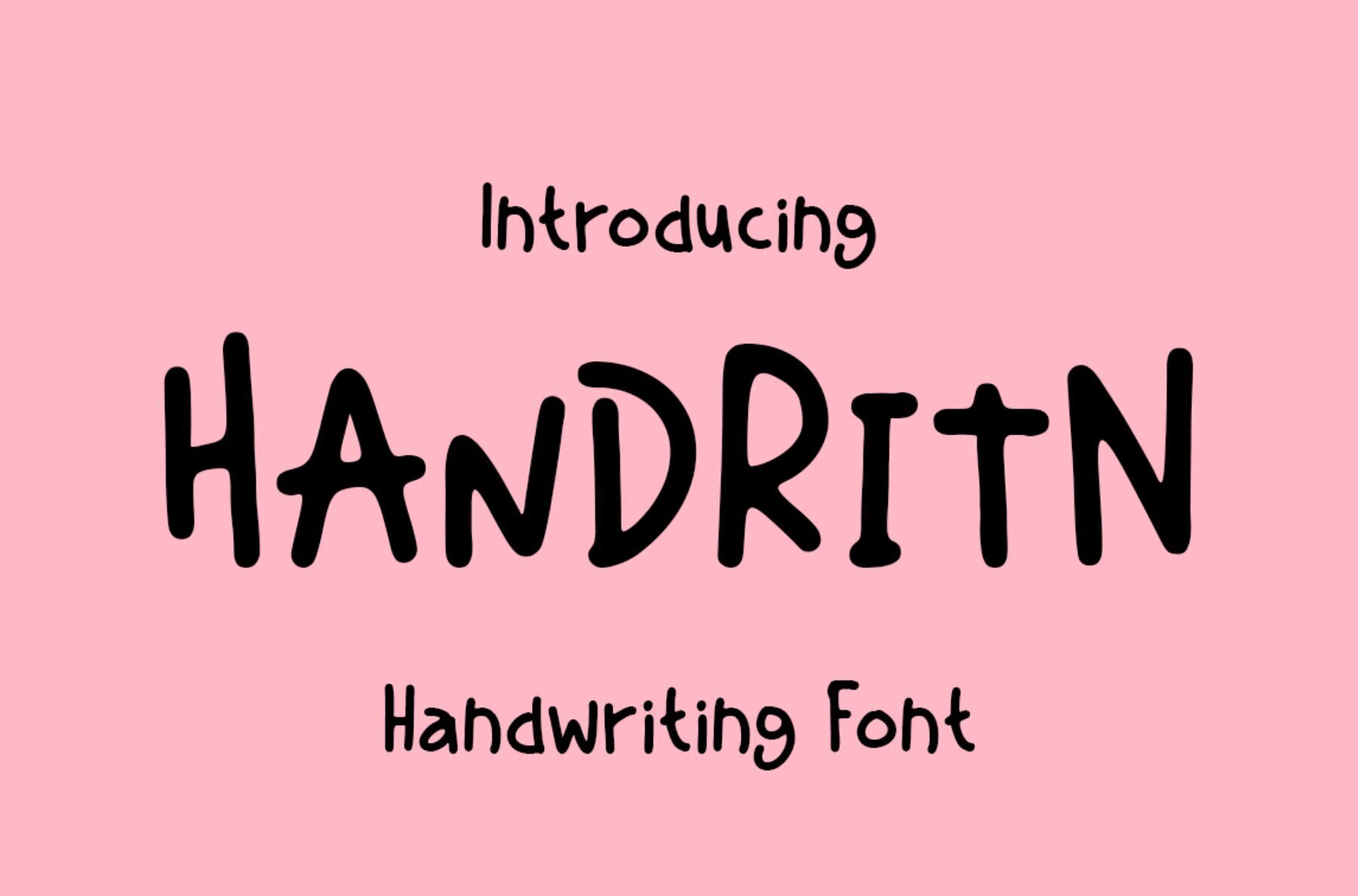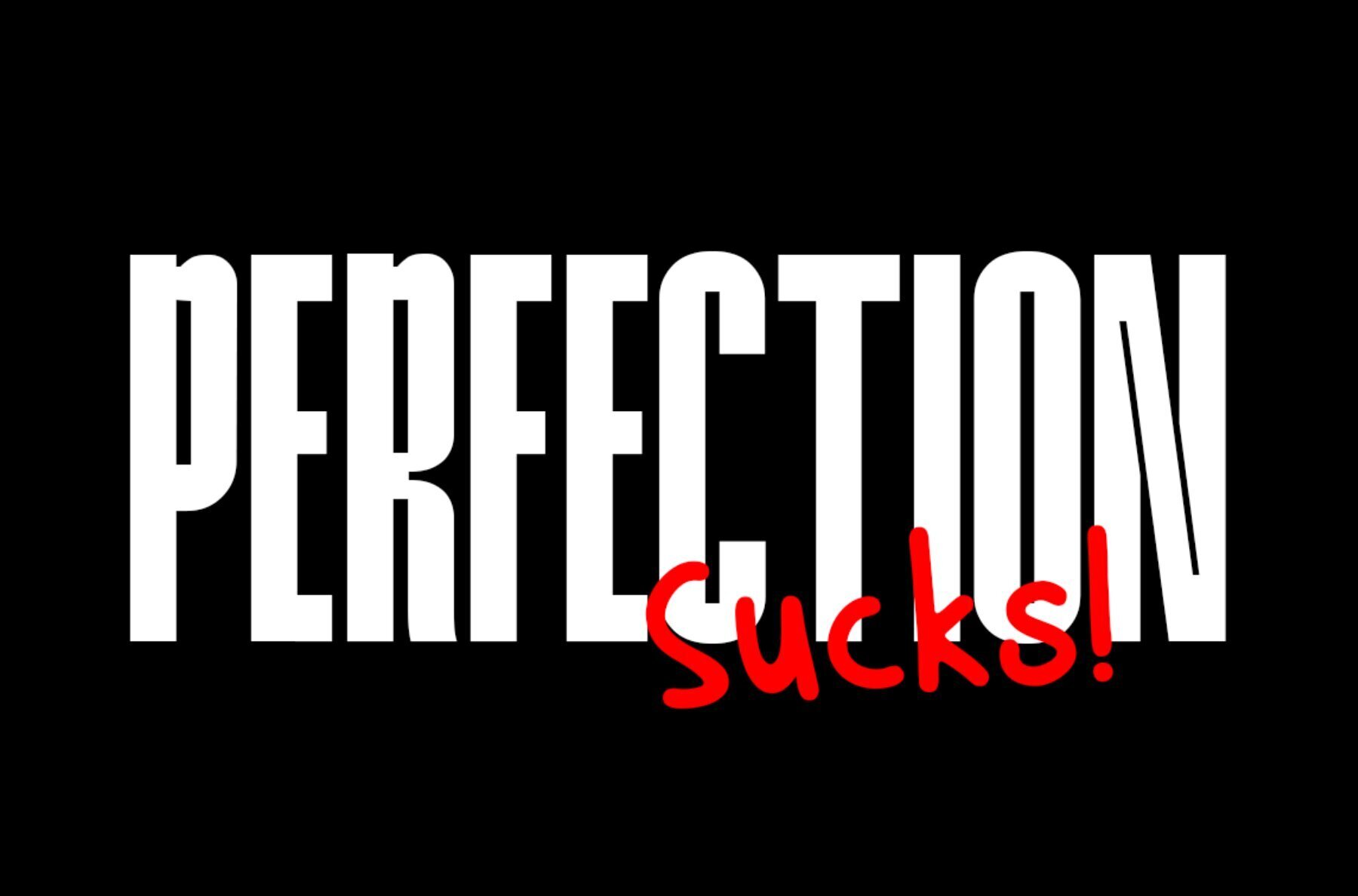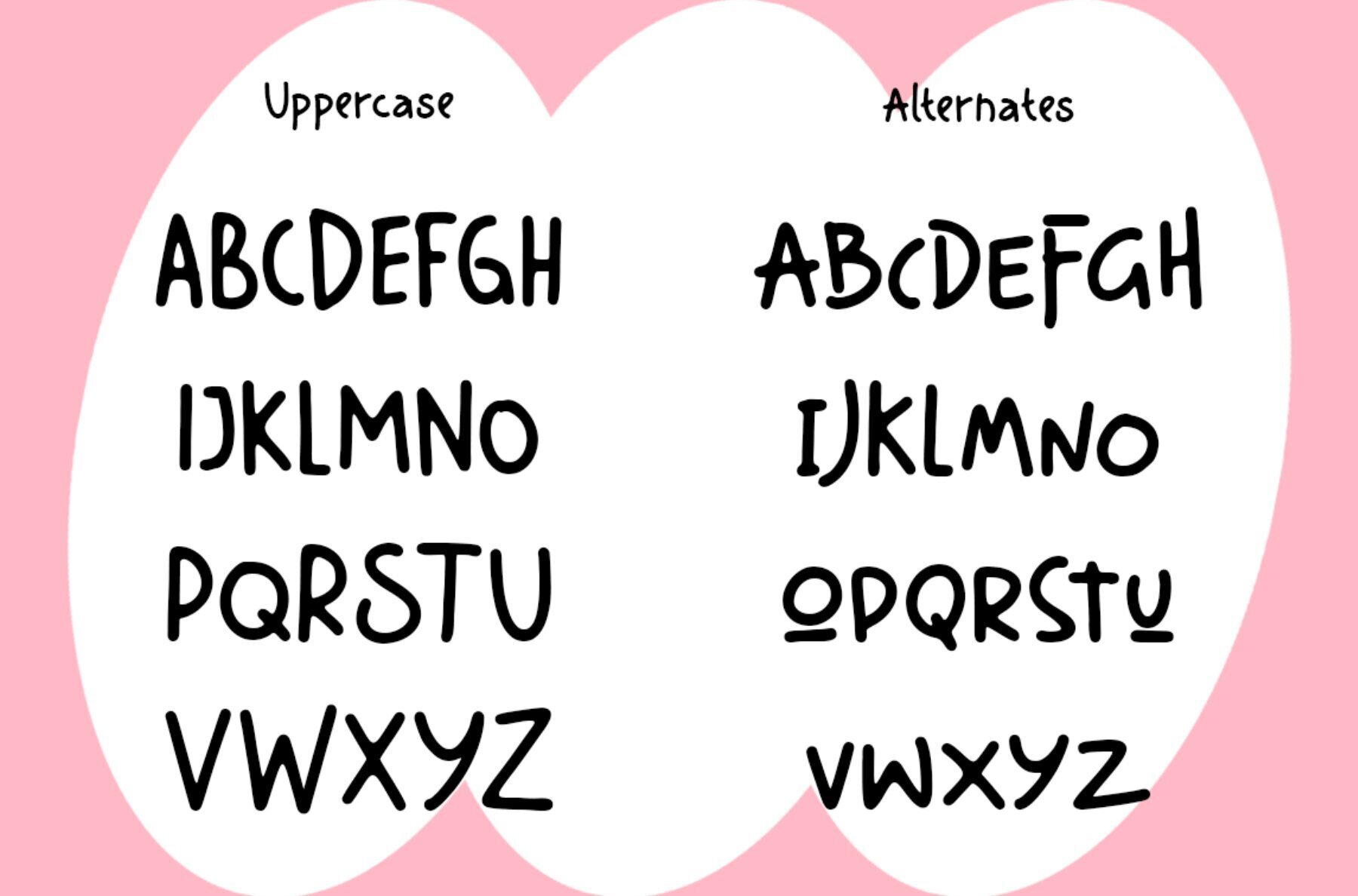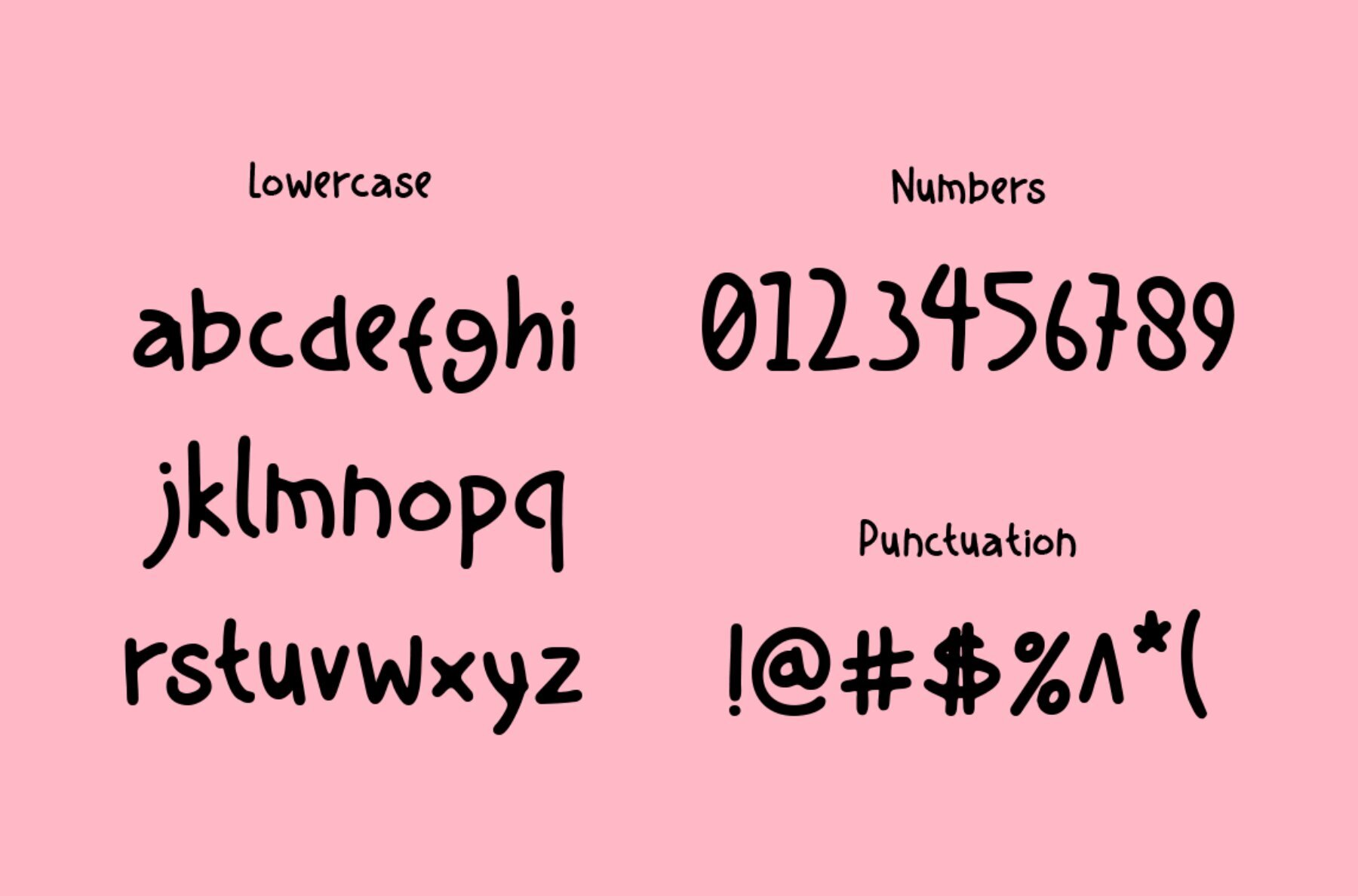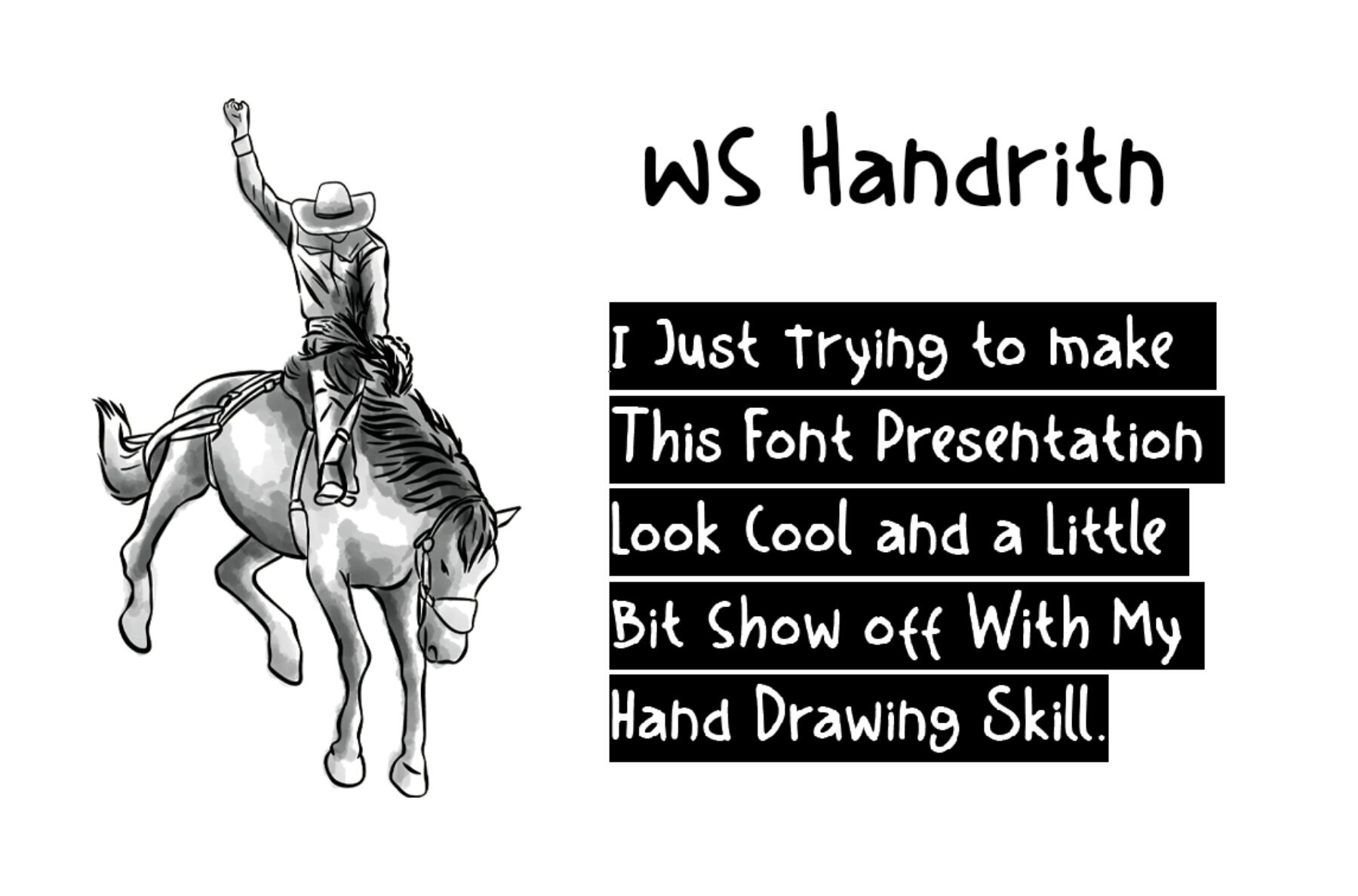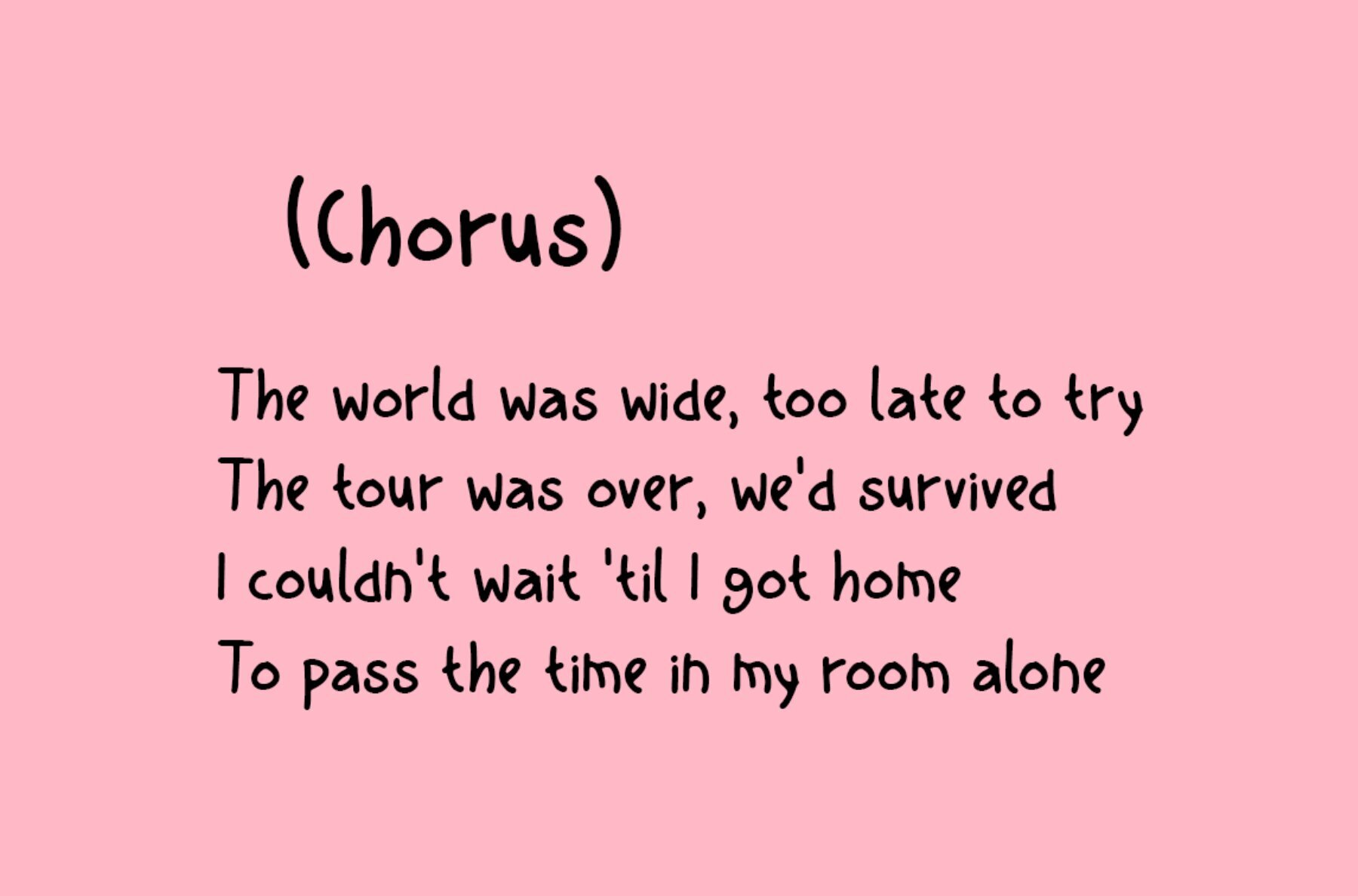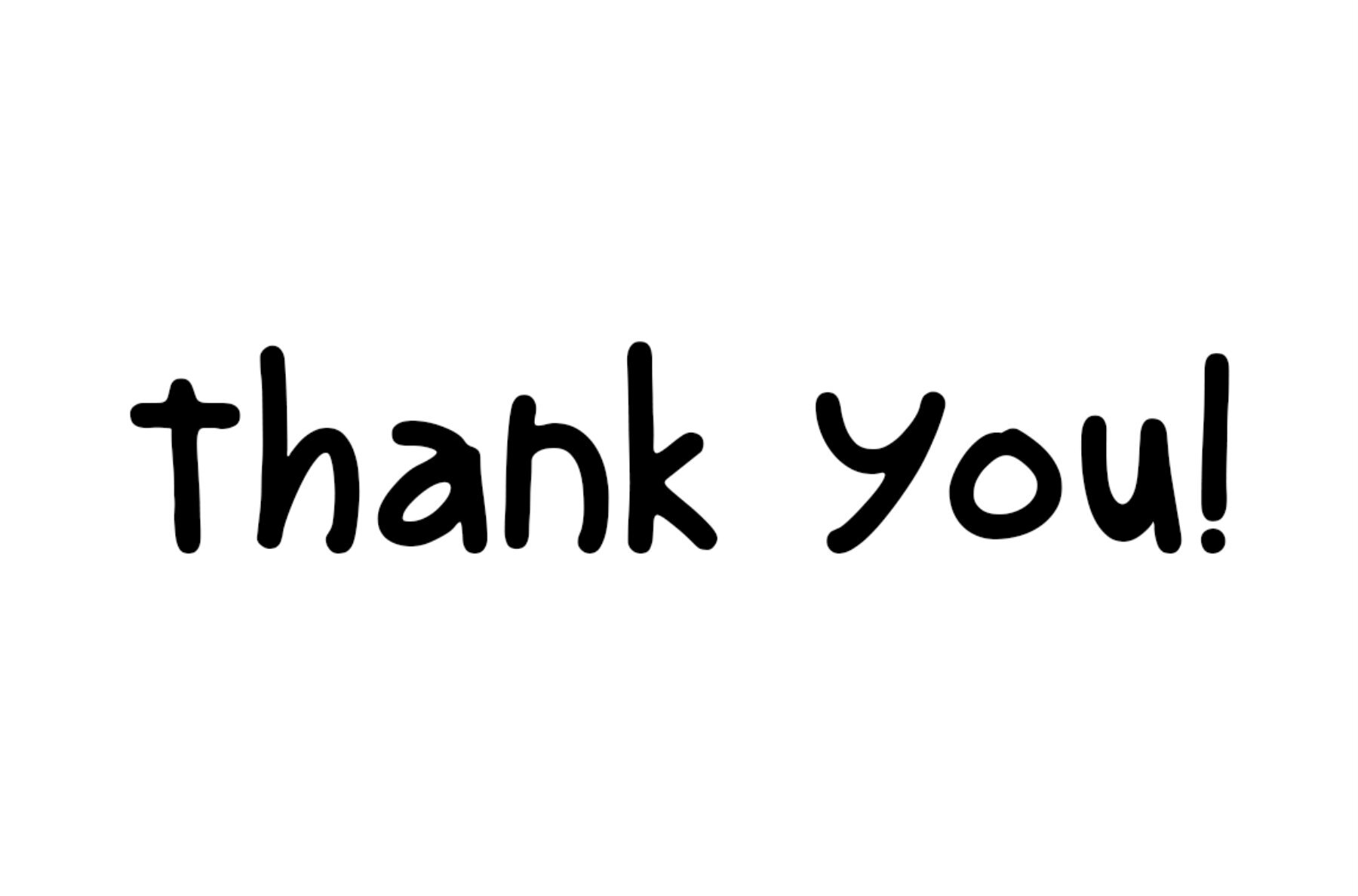
Handritn Font
WS Handritn Regular
Handritn is a distinctive handwritten font that captures attention with its unique character and expressive style. Featuring both lowercase and uppercase letterforms, along with full uppercase alternates, it provides a versatile toolkit for designers seeking to add a personal, human touch to their projects.
The font's artistic flair and varied letterforms make it ideal for a range of creative applications, from branding and packaging to editorial design and social media graphics. Whether you're looking to create an inviting logo or craft compelling headlines, Handritn offers a rich set of options to enhance your design work with originality and personal expression.